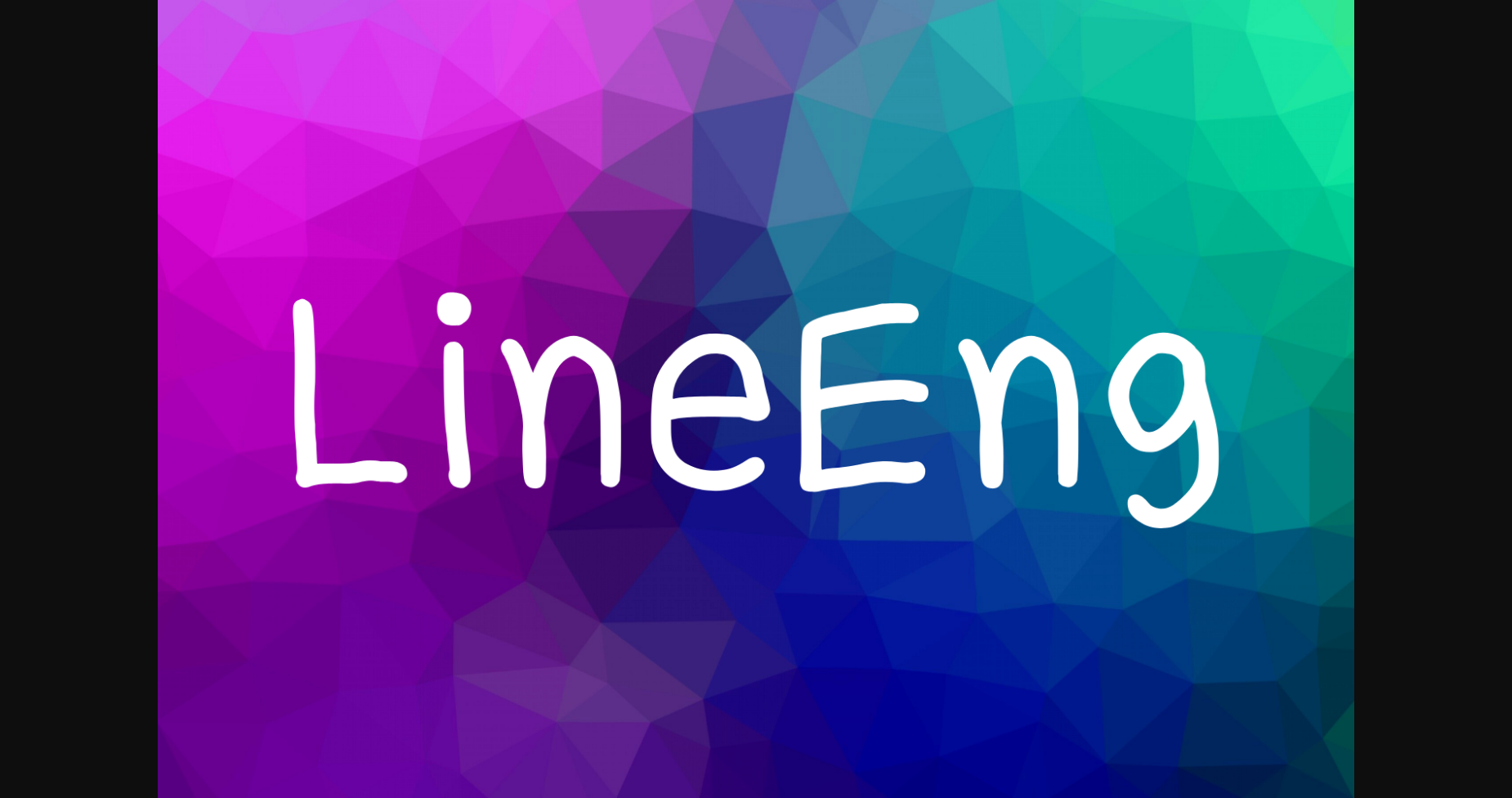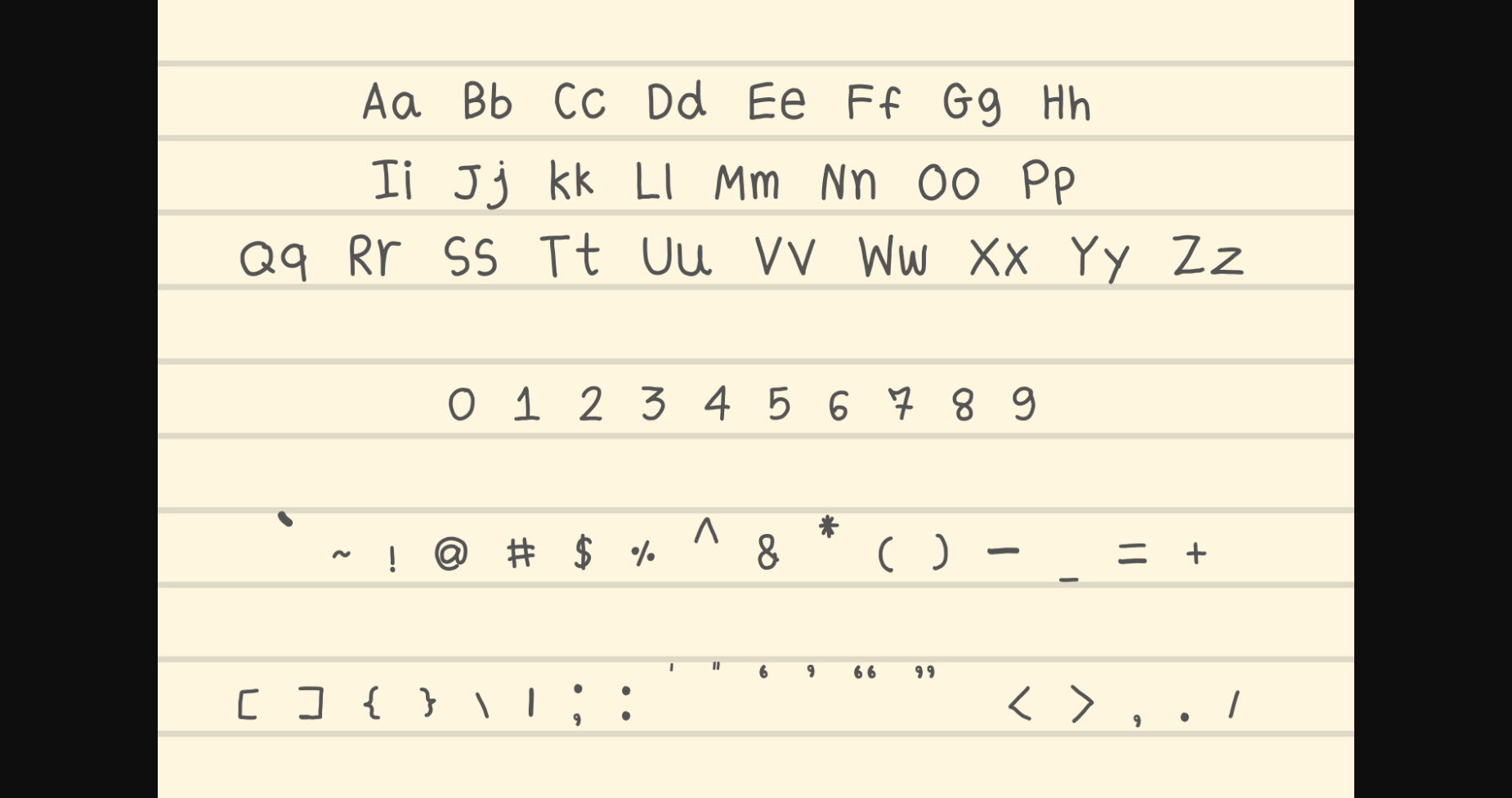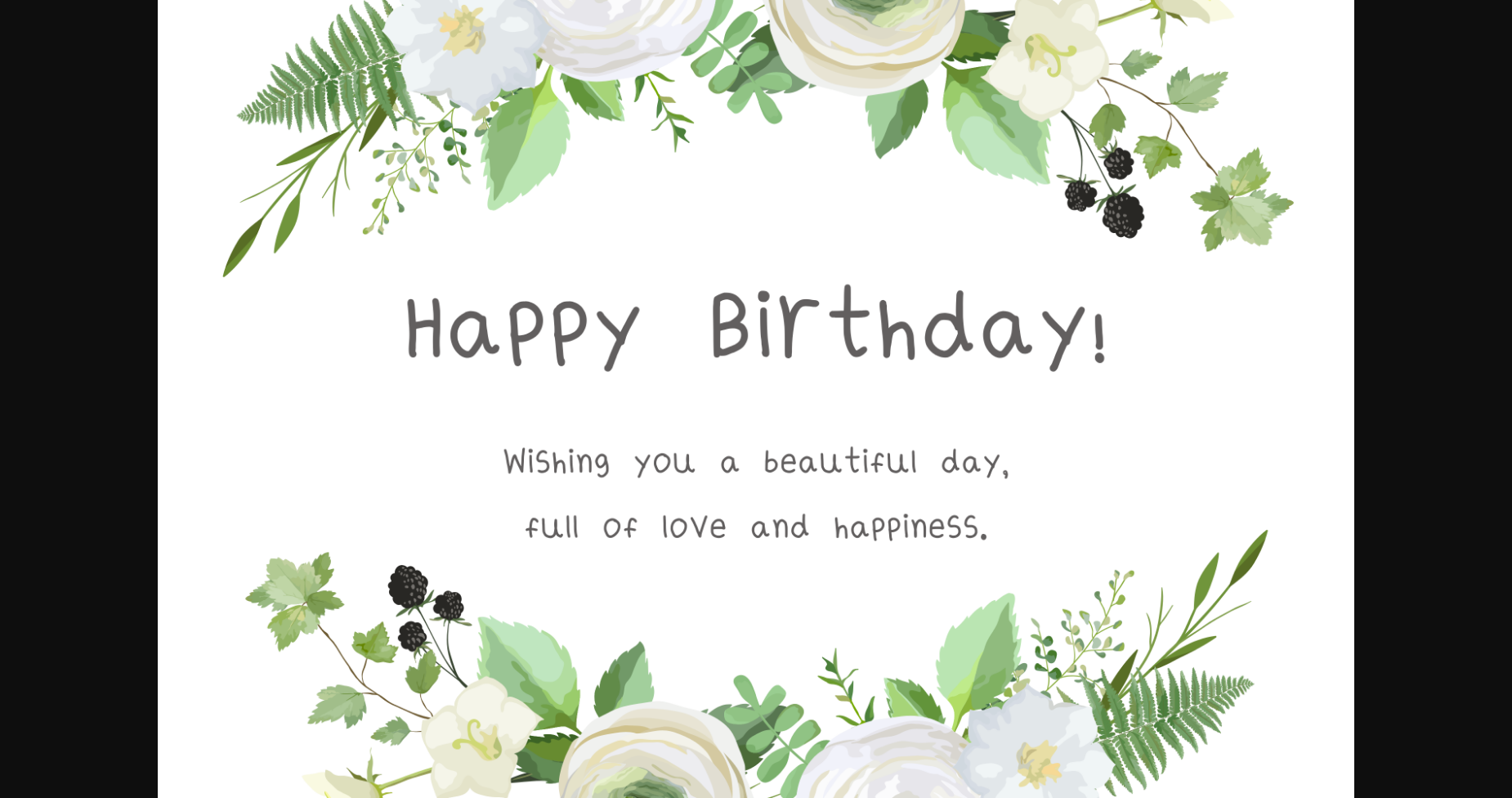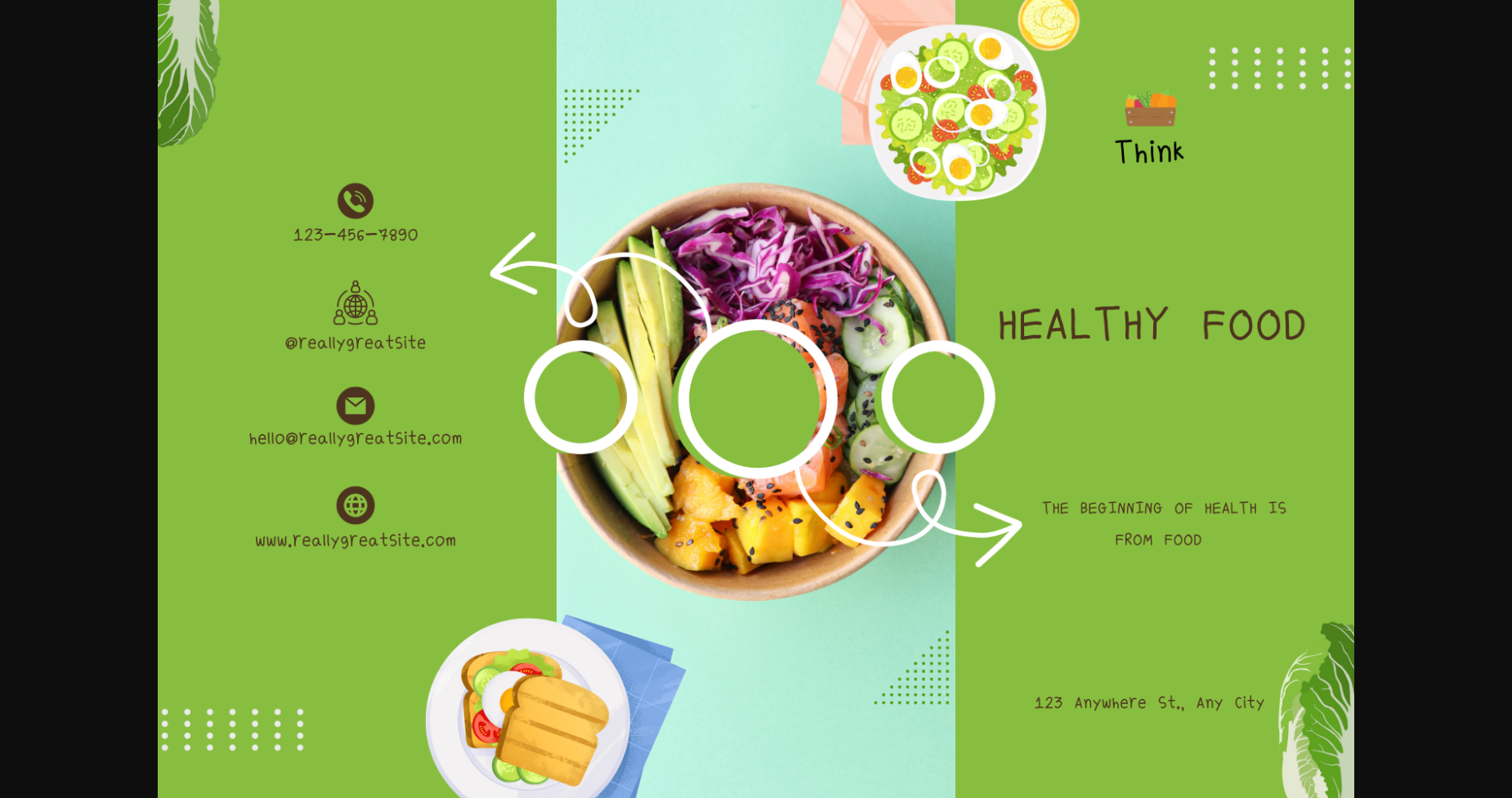
About Lineeng Font
LineEng is a light and modern sans-serif font designed for a clean and sophisticated look. With its airy and minimalistic style, Aerolite is perfect for branding, editorial design, and any project that requires a modern touch. Use Aerolite to create a crisp and contemporary feel for your typography.